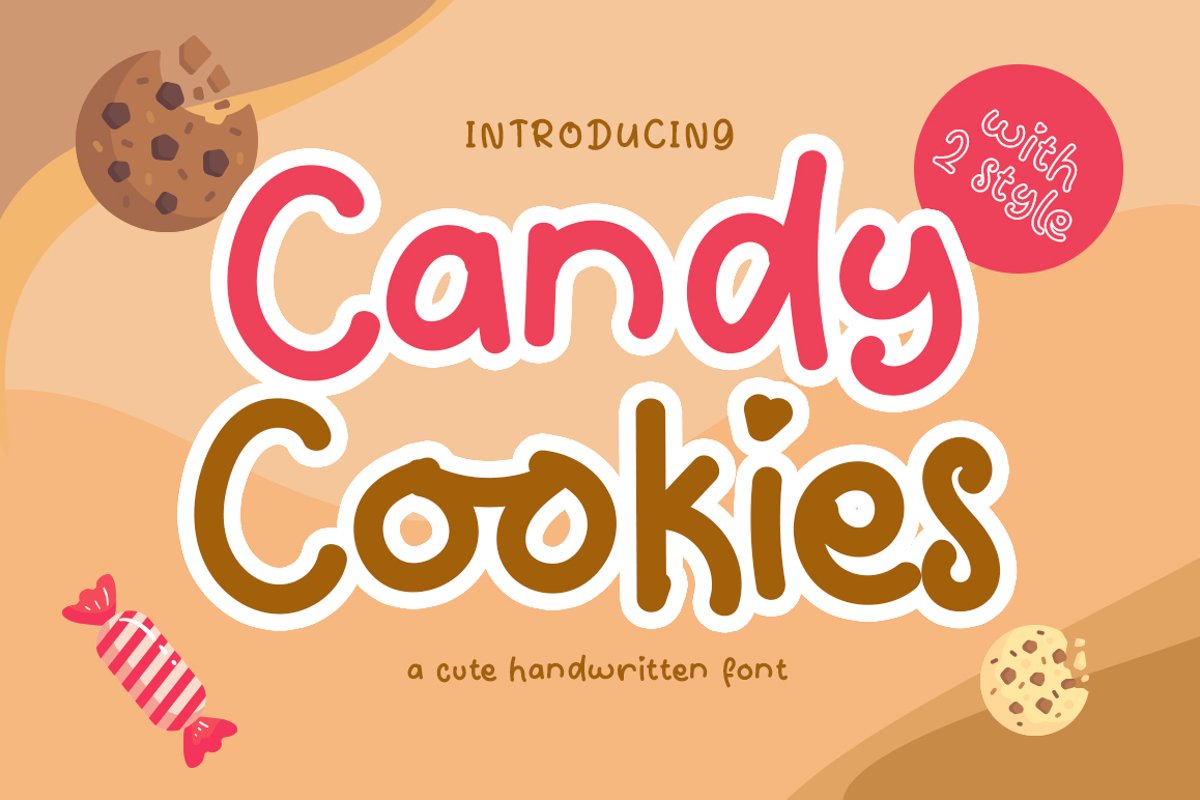
Candy Cookies
Candy Cookies is a fun handwritten font. It will elevate a wide range of design projects to the highest level, be it branding, headings, wedding designs, invitations, signatures, logos, labels, and much more!